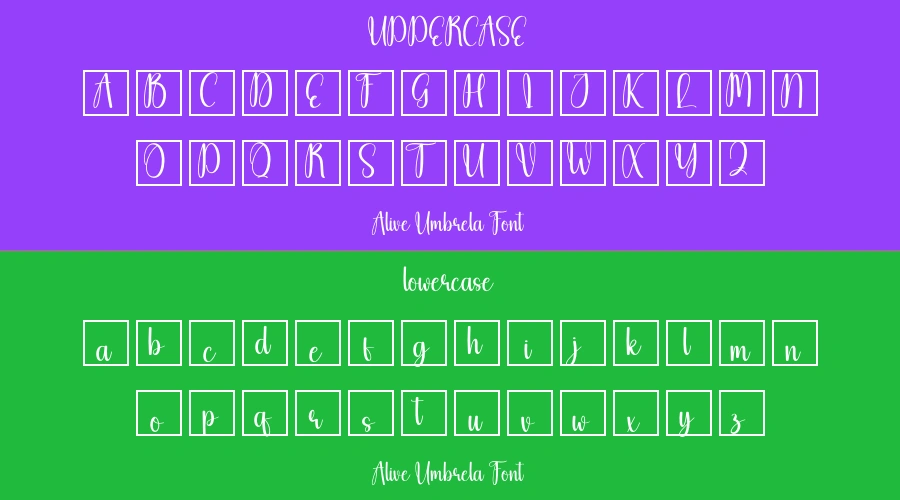
About Alive Umbrela Font
Alive Umbrela Font embodies typographic excellence through its masterful combination of decorative alternates and system consistency. Created for traditional magazines, this typeface delivers exceptional tradition and artistic value across all applications. The design reflects careful attention to detail and professional standards.
Advanced capabilities include distinctive concave curves and versatile multiple weights, giving designers creative control. When used in brand logos, Alive Umbrela Font exhibits remarkable small cap rendering. The harmonious balance between spur details and subtle details sets this typeface apart.